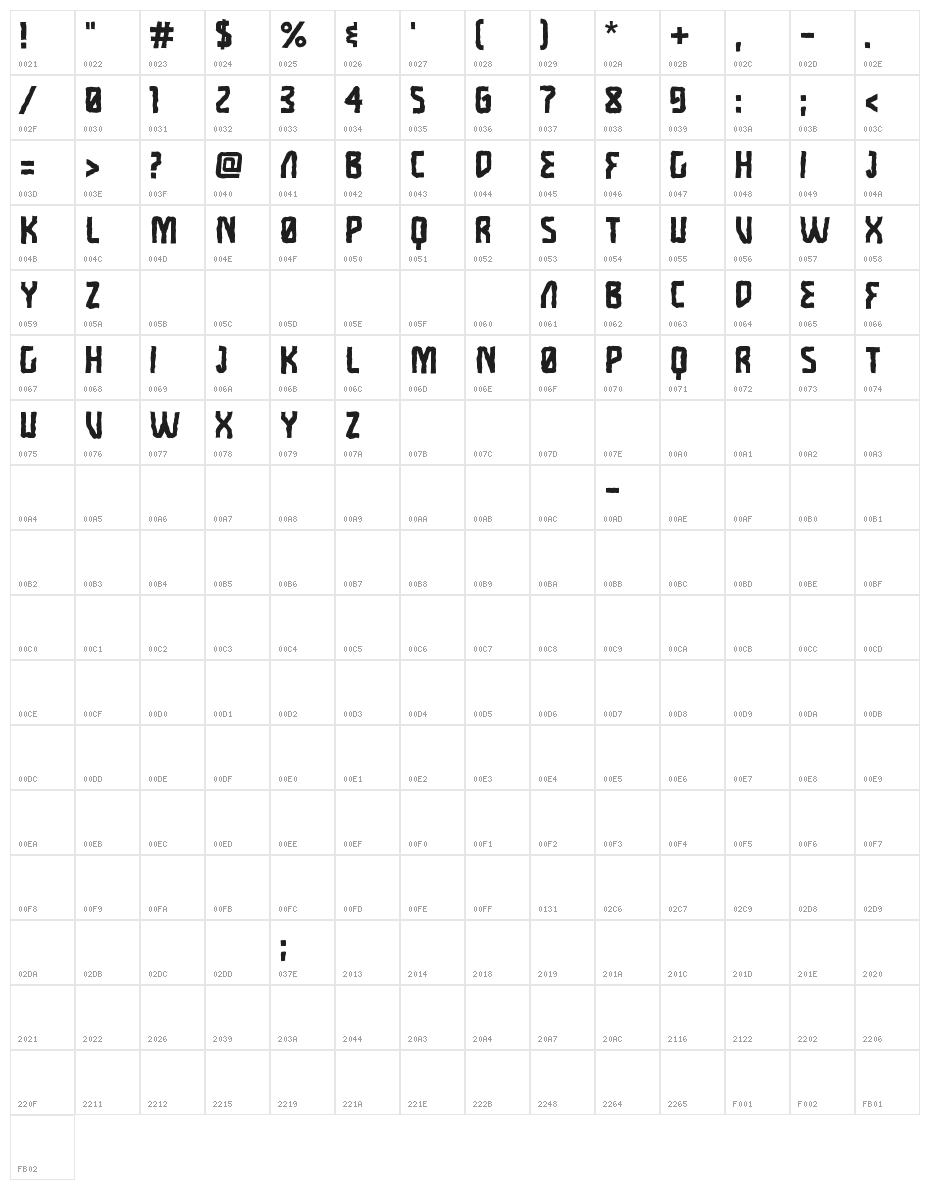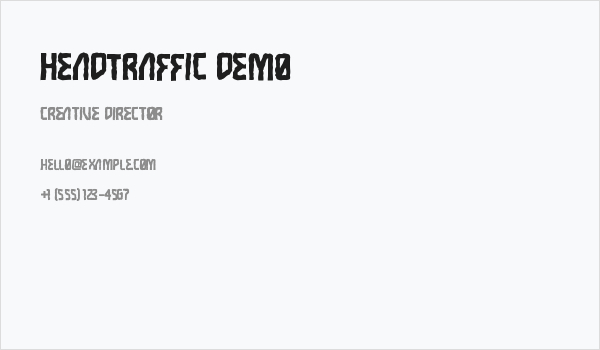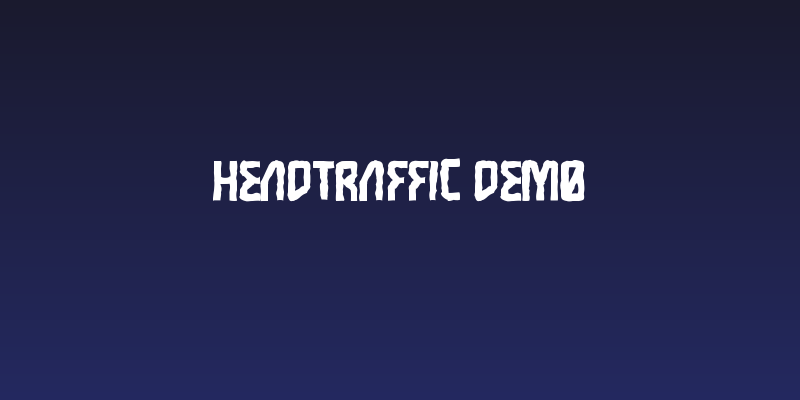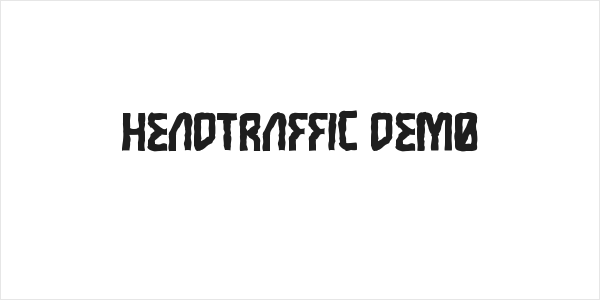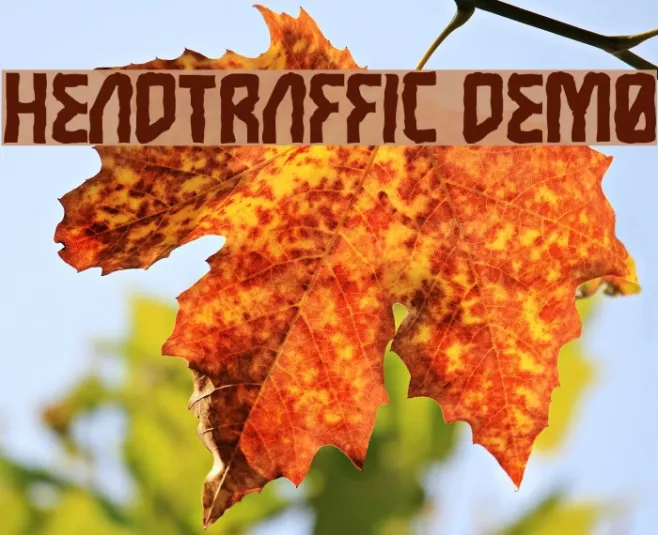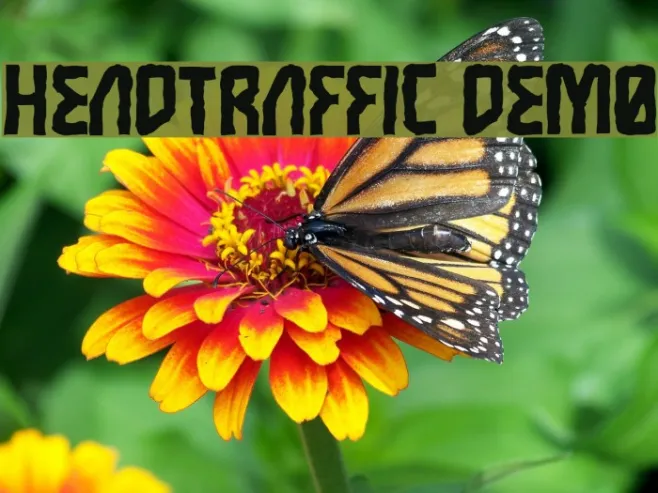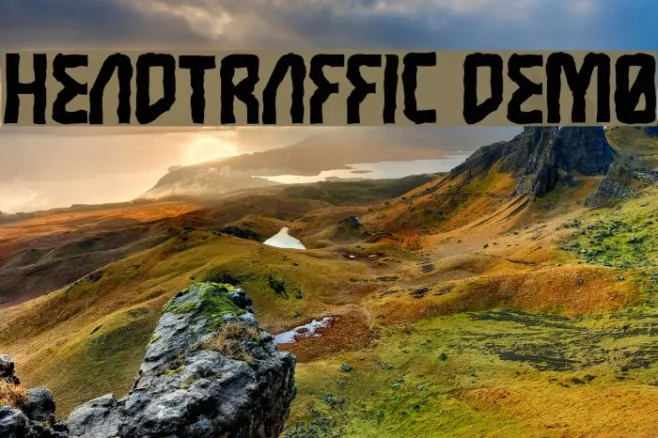
Headtraffic DEMO Font
Headtraffic DEMO Description
This font features a bold and rugged design, characterized by its thick, uneven strokes and a hand-carved appearance. The letters have a distinct, organic feel, with irregular edges that give it a raw, artistic look. The uppercase and lowercase letters maintain a consistent style, while the numbers and special characters complement the overall aesthetic. This font exudes a sense of strength and individuality, making it ideal for projects that require a bold statement.
| Proposed Projects | Ideal for posters, album covers, branding, and any project that requires a strong, artistic statement. |